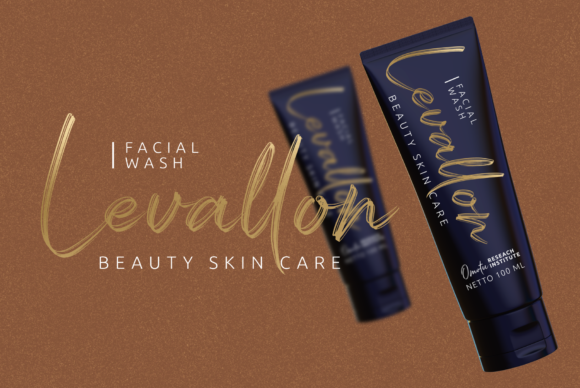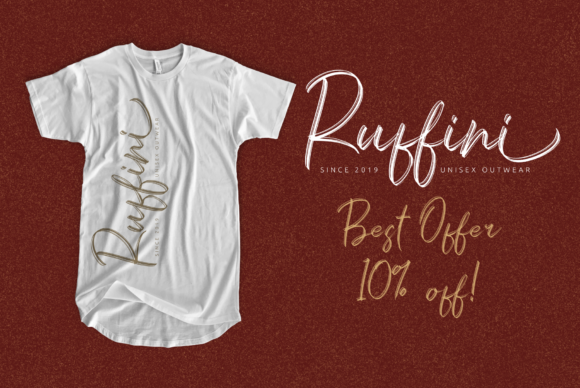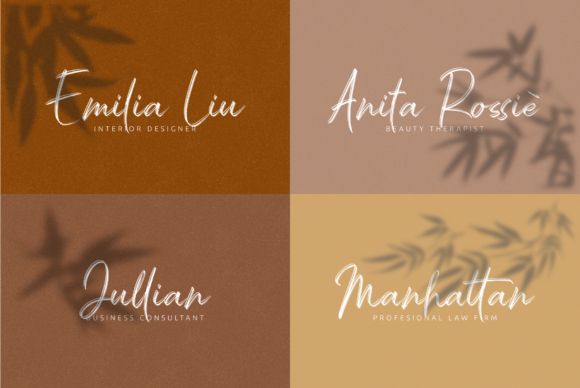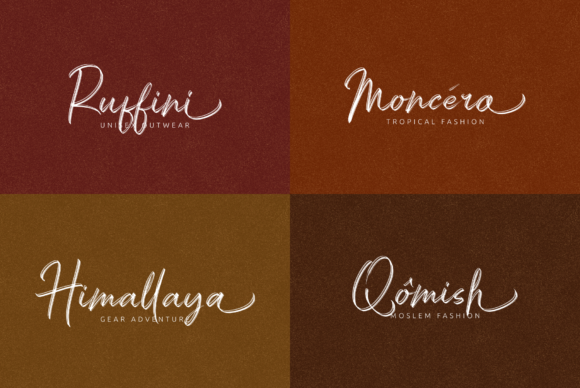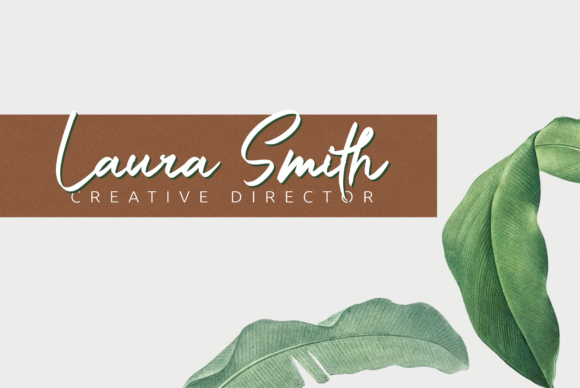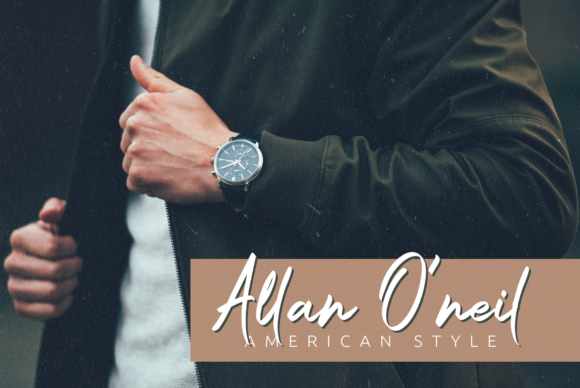
Introduction to Salim Font
Have you ever been stuck in front of your computer, staring at a blank page, trying to bring a creative project to life? You’ve got a vision in your mind, but the words just won’t flow. That’s where the right font can be a game-changer. For designers, finding the perfect font can be a tedious process, but what if you stumbled upon one that not only looks stunning but also exudes elegance and authenticity?
Enter the Salim Font, a high-quality, free download that’s about to become your new design BFF. With its contemporary look, this font is perfect for any creative project that requires a touch of sophistication. Whether you’re designing a logo, a brochure, or a website, the Salim Font is sure to elevate your design to the next level.
Key Features of Salim Font
- High-quality font with a unique and creative design, perfect for various projects.
- Transparent background, allowing for easy integration with different backgrounds and designs.
- Comes in a single size, making it easy to use in various creative projects.
- Designed with a high resolution, ensuring clear and crisp text display.
- Can be used in a wide range of creative projects, from graphics and logos to typography and more.
Honest Review: Salim Font
As a designer, I’m always on the lookout for high-quality design resources to elevate my creative projects. Recently, I stumbled upon the Salim Font, and I’m excited to share my honest review with you.
What works well: ✨ The Salim Font is a beautiful, elegant script font that’s perfect for adding a touch of sophistication to your designs. It’s available for free download, which is a major bonus. The font also features a transparent background, making it easy to layer over images or other design elements.
Here are some of the key features that make the Salim Font a valuable design resource:
- High-quality design: The Salim Font is well-crafted and looks great at various font sizes.
- Transparent background: This feature makes it easy to customize the font to fit your design needs.
Limitations: ⚠️ One potential limitation of the Salim Font is that it may not be suitable for certain design styles or themes. Additionally, the font may not be as versatile as some other fonts on the market.
Overall impression: I’m impressed with the Salim Font, and I think it’s a great addition to any designer’s toolkit. While it may have some limitations, the font’s high quality and free download make it a valuable resource for any creative project.
Tips for Getting the Most Out of Salim Font
For the best results, use the Salim Font with a transparent background to give your design a clean and modern look. You can also use the font in combination with other design resources to create a unique and eye-catching design.
The Salim Font is a versatile design resource that can be used in a variety of creative projects, including logos, brochures, and social media graphics. Its high quality and transparent background make it an ideal choice for designers looking for a professional and modern look.